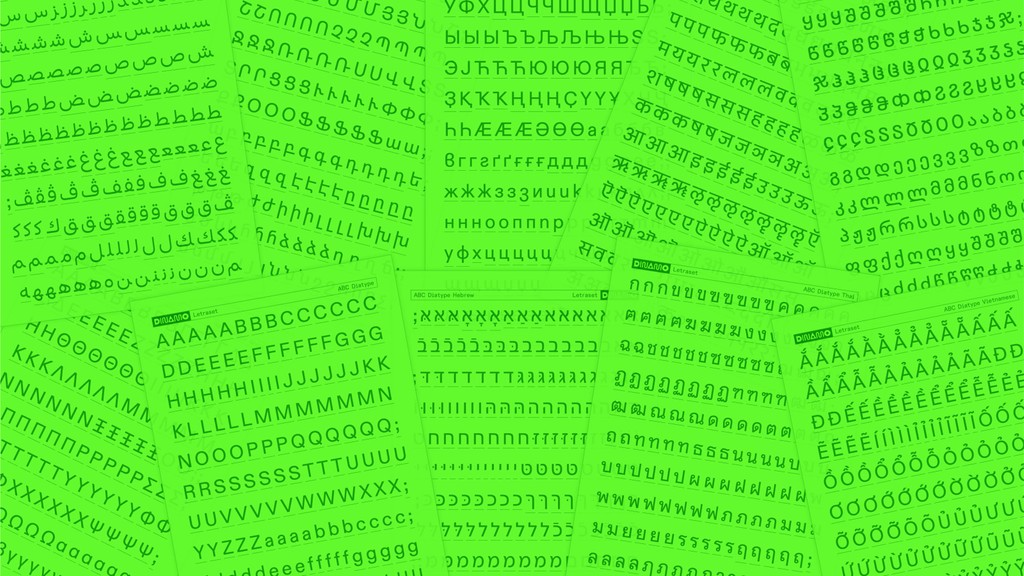
Diatype Cyrillic
ABC Diatype is a warm yet sharp grotesque, ideal for text and reading on screen. It began its life during co-founder Fabian Harb’s student days, as an eager exploration of the Swiss Neo-grotesque genre; its name harks back to the clunky, pre-digital typesetting machines that informed its shapes.
In 2018, Dinamo’s long-standing family member Elias Hanzer completed ABC Diatype by extending the single weight Upright and Italic design to a family with Thin, Light, Regular, Medium, and Bold, with corresponding Monospace and Italics. A Schoolbook Stylistic Set is also available, which includes a single story a, a tombstone-style t, and simplified numbers that rise diagonally.
Virgil Abloh Icons. Design by ZAK group
Customised Diatype for Rekki, London. Design with Rekki
Foodculture Days. Design by Sarah Discours
Alpina Huus. Design by Dan Solbach Studio
Demonstration Rooms, Spector Books. Design by Lamm & Kirch
The Culture Podcast. Design by U-P
terms of importance. Design by Samira Schneuwly
Good Money. Identity by New Studio